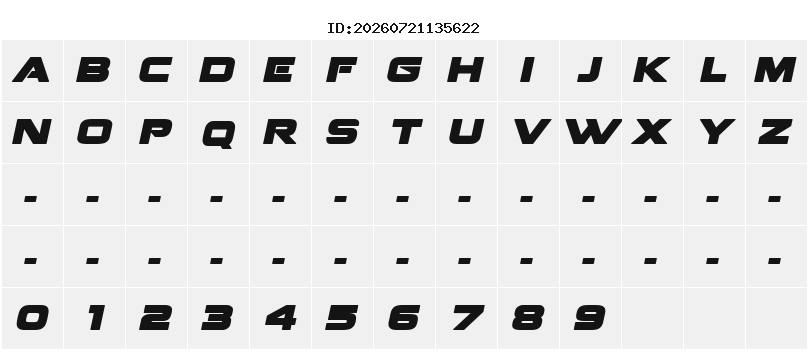
Fenix BlackletterCaps Preview
• Font Name: Fenix BlackletterCaps
• Manufacturer: TracerTong
About Fenix BlackletterCaps.ttf
Fenix BlackletterCaps.ttf is a modern, elegant sans-serif font designed for ultimate readability and visual harmony. Perfect for branding, headlines, web design, and print materials.